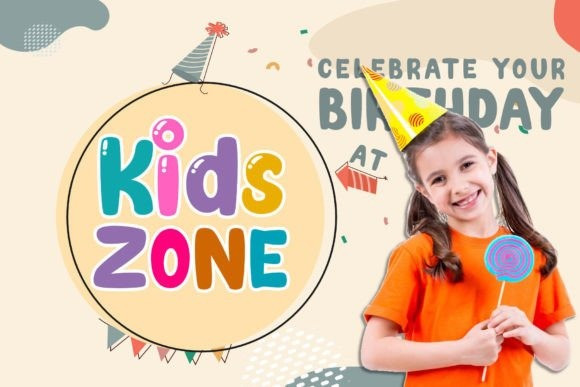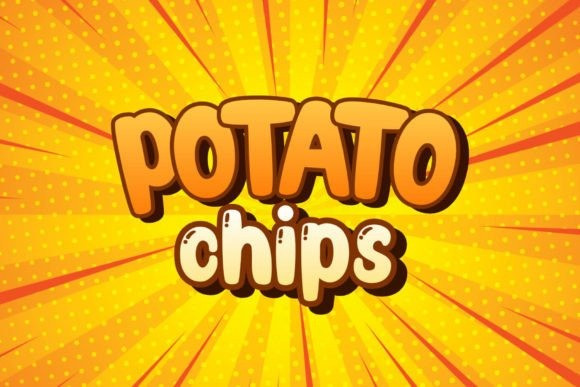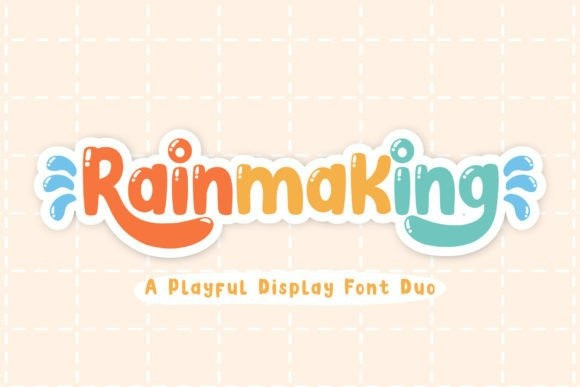
Rainmaking Display Font
Rainmaking Display Font is a simple and playful handwritten font duo that will make your design project more attractive and sophisticated. This font duo features two styles, regular and flat, each with various ligatures and alternates to give you more options and flexibility. Whether you need to create logos, posters, flyers, banners, or social media graphics, Rainmaking will add a touch of style and professionalism to your designs. Download Rainmaking today and enjoy this simple handwritten font duo!